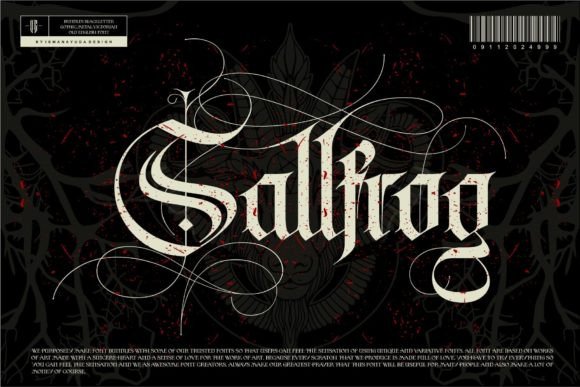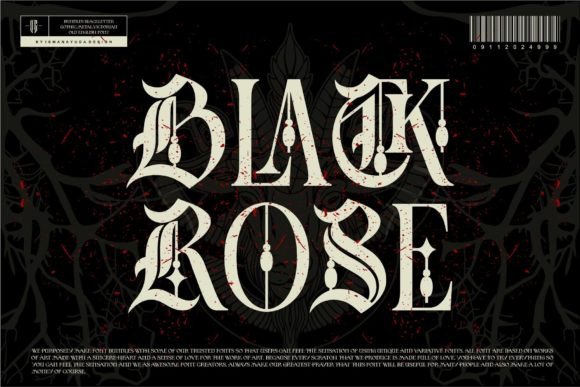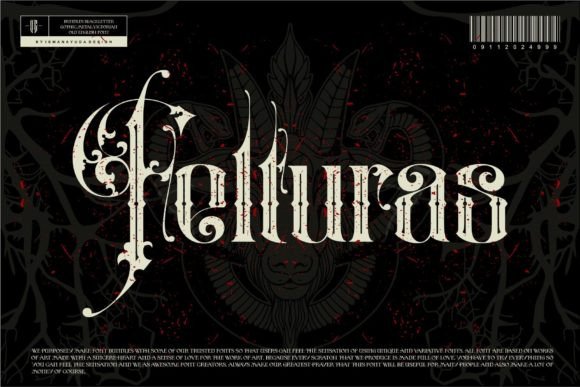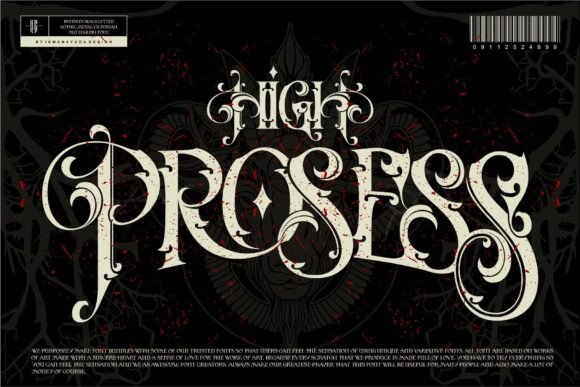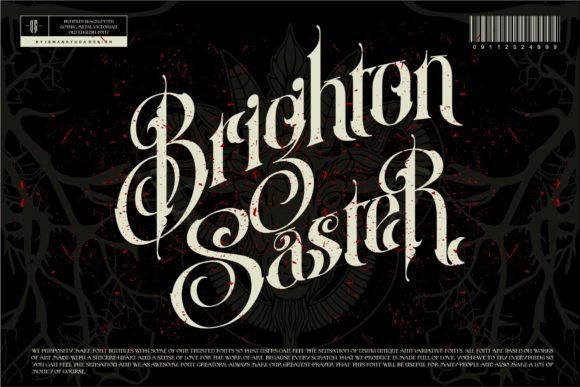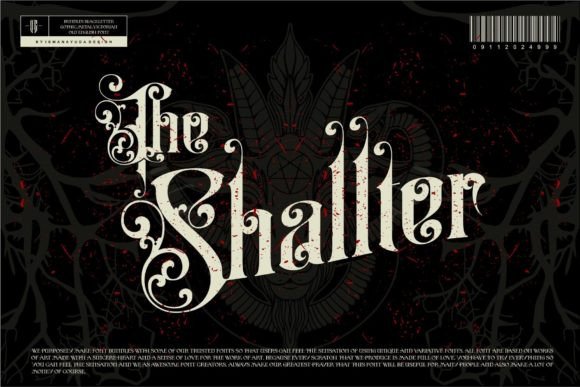
Introducing Bundles Blackletter Font: A Collection of Timeless and Dramatic Typefaces
Are you a designer or crafter looking for a font that exudes elegance, sophistication, and a touch of nostalgia? Look no further than the Bundles Blackletter Font, a comprehensive collection of 12 bold and classic blackletter styles. This bundle is a treasure trove of vintage-inspired typefaces, perfect for creating strong, old-fashioned designs with a dark, elegant touch.
A Mix of Timeless Styles
The Bundles Blackletter Font collection is a curated selection of fonts that showcase a range of blackletter styles, including Victorian Blackletter, Metal Fonts, Gothic Fonts, and Old English. Each font in the bundle has been carefully crafted to evoke a sense of drama and luxury, making them perfect for a variety of design projects.
Victorian Blackletter: A Era of Elegance
Victorian Blackletter fonts are characterized by their intricate and ornate designs, inspired by the elegant typography of the Victorian era. These fonts feature elaborate flourishes, sharp serifs, and a sense of refinement that evokes the luxury and sophistication of the 19th century. With the Bundles Blackletter Font, you can add a touch of Victorian elegance to your designs, perfect for creating wedding invitations, certificates, and other formal documents.
Metal Fonts: Industrial Strength
Metal Fonts, on the other hand, have a rugged, industrial feel that is perfect for creating bold and edgy designs. These fonts feature sharp, metallic lines and a sense of weightiness that gives them a strong, rugged appearance. With the Bundles Blackletter Font, you can add a touch of industrial chic to your designs, perfect for creating posters, flyers, and other marketing materials.
Gothic Fonts: A Dark and Mysterious Allure
Gothic Fonts have a dark, mysterious allure that is perfect for creating designs that are dramatic and eye-catching. These fonts feature bold, geometric lines and a sense of mystery that evokes the unknown. With the Bundles Blackletter Font, you can add a touch of Gothic drama to your designs, perfect for creating logos, branding materials, and other visual elements.
Old English: A Nod to the Past
Old English fonts are a classic choice for designers looking to add a touch of nostalgia and tradition to their designs. These fonts feature a distinctive, medieval-inspired design that evokes a sense of history and heritage. With the Bundles Blackletter Font, you can add a touch of Old English charm to your designs, perfect for creating certificates, diplomas, and other formal documents.
The Bundles Blackletter Font collection is perfect for designers and crafters looking to add a touch of elegance and sophistication to their designs. Whether you’re creating wedding invitations, posters, logos, or other visual elements, this bundle has everything you need to create stunning, professional-grade designs.
Key Features of the Bundles Blackletter Font
• 12-font bundle featuring a mix of bold and classic blackletter styles
• Includes Victorian Blackletter, Metal Fonts, Gothic Fonts, and Old English
• Perfect for creating strong, old-fashioned designs with a dark, elegant touch
• Features intricate and ornate designs, sharp serifs, and a sense of refinement
• Industrial-strength Metal Fonts for bold and edgy designs
• Gothic Fonts with a dark, mysterious allure
• Old English fonts with a distinctive, medieval-inspired design
Get Creative with the Bundles Blackletter Font
With the Bundles Blackletter Font, the design possibilities are endless. Here are a few ideas to get you started:
• Create stunning wedding invitations and ceremony cards
• Design eye-catching posters and flyers for concerts, events, and marketing campaigns
• Develop logos and branding materials that exude elegance and sophistication
• Make certificates, diplomas, and other formal documents with a touch of nostalgia and tradition